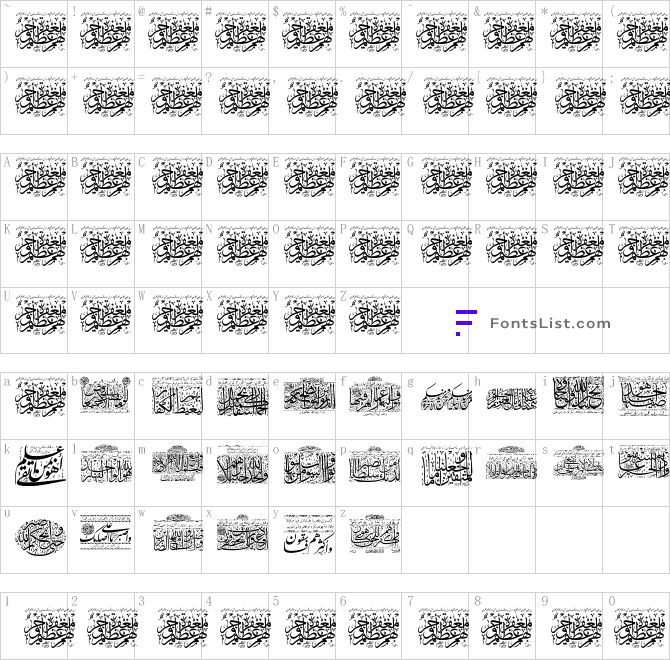
- Font Name:Aayat Quraan 29
Aayat-Quraan-29.ttf is a very beautiful artistic font, Aayat-Quraan-29.ttf is widely used in the design and printing of various books and pictures,Aayat-Quraan-29.ttf has a strong visual impact,Aayat-Quraan-29.ttf is a commonly used font in newspapers, magazines and books, and is used in posters, e-commerce Poster design, store design, logo design, font design and other fields.Aayat-Quraan-29.